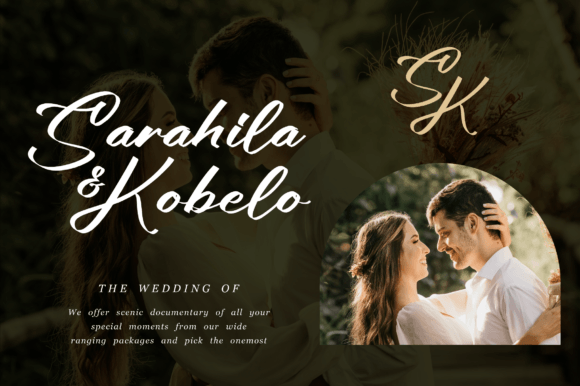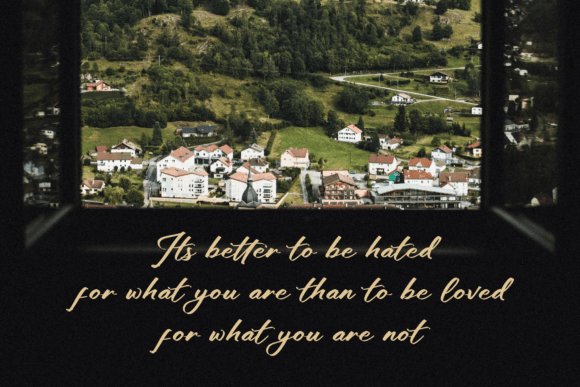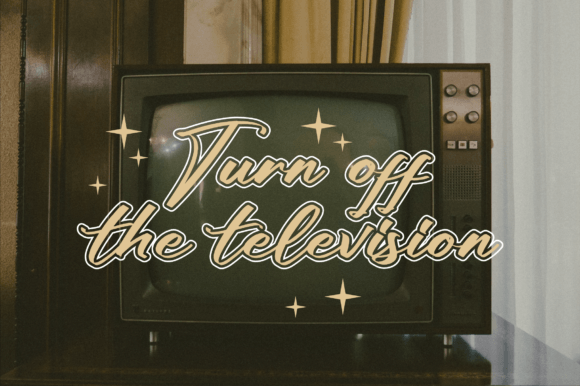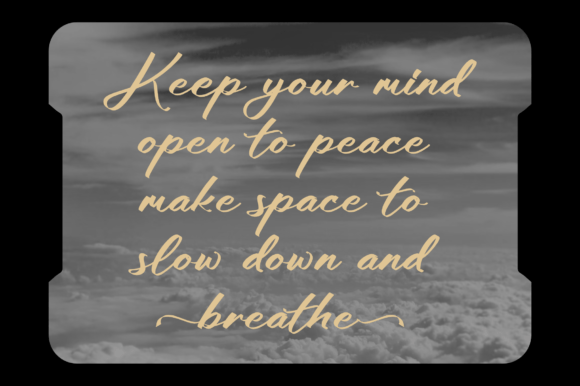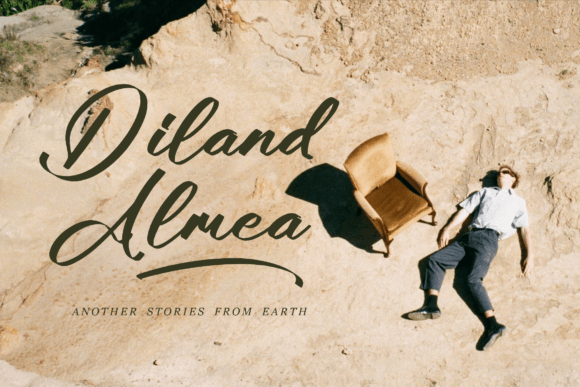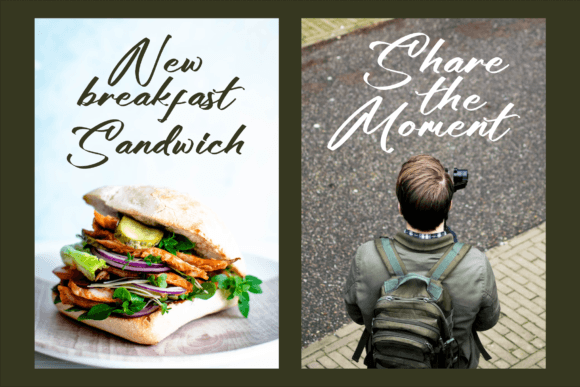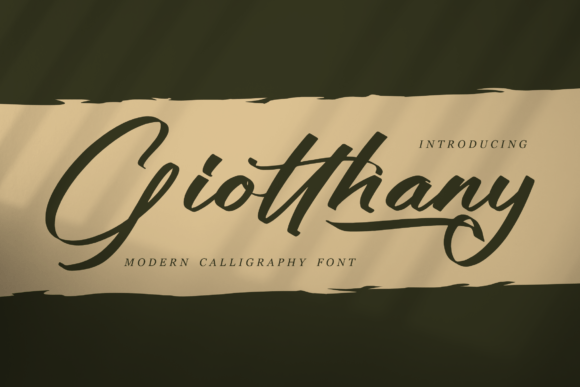
Giotthany Font: Elevate Your Designs with Exquisite Modern Calligraphy
In the world of design, typography plays a crucial role in conveying messages, expressing creativity, and building brand identities. For designers and crafters seeking a font that embodies elegance, sophistication, and modernity, Giotthany font is an exceptional choice. This stunning calligraphy font is designed to elevate your visual projects, making them stand out with its unique charm and character.
What is Giotthany Font?
Giotthany is an exquisite and modern calligraphy font that boasts a distinctive, hand-crafted look. Its elegant strokes, fluid connections, and precise letterforms make it perfect for a wide range of design applications. Whether you’re working on logos, branding projects, homeware designs, or product packaging, Giotthany font brings a touch of sophistication and luxury to your creations.
Key Features of Giotthany Font
- Modern Calligraphy Style: Giotthany font features a modern calligraphy style with flowing lines and dynamic connections, giving your designs a fresh and contemporary look.
- Elegant and Versatile: The font’s elegant appearance makes it suitable for various design projects, from logos and branding to homeware and product packaging.
- High-Quality Design: Giotthany font is meticulously crafted with attention to detail, ensuring high-quality design that looks stunning in both print and digital formats.
- Easy to Read: Despite its decorative nature, Giotthany font remains highly legible, making it perfect for use in quotes, posters, and other textual designs.
Use Cases for Giotthany Font
Giotthany font’s versatility makes it an excellent choice for a multitude of design projects, including:
- Logos and Branding Projects: Create memorable and stylish logos that reflect your brand’s personality and values.
- Homeware Designs: Add a touch of elegance to your homeware designs, such as stationery, wall art, and decorative items.
- Product Packaging: Stand out on store shelves with beautifully designed product packaging that showcases your brand’s style.
- Mugs and Apparel: Design eye-catching mugs, t-shirts, and other apparel that make for great promotional items or personal gifts.
- Quotes and Posters: Create inspiring quotes and posters that convey your message with style and sophistication.
- Shopping Bags and Labels: Elevate your brand’s packaging with stylish shopping bags and labels that leave a lasting impression.
- Book Covers and Invitation Cards: Design stunning book covers and invitation cards that capture the essence of your event or publication.
- Greeting Cards and Photography: Add a personal touch to your greeting cards and photography with Giotthany font’s elegant and modern style.
- Watermark and Special Events: Use Giotthany font as a watermark for your photos or as a decorative element for special events, such as weddings and parties.
Why Choose Giotthany Font?
- Unique and Distinctive: Giotthany font offers a unique and distinctive style that sets your designs apart from the rest.
- Highly Customizable: The font’s flexibility allows you to experiment with different design elements, ensuring your final product is tailored to your needs.